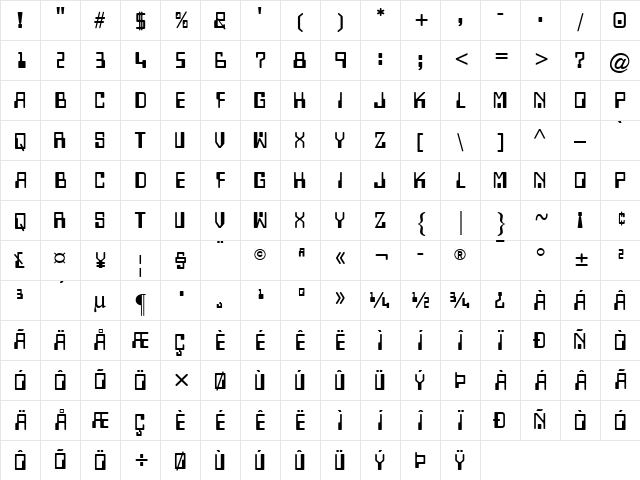
Complete ATComputer Regular glyph index. Displaying only characters natively supported by ATComputer Regular font.
ATComputer is a composed and adaptable typeface that performs quietly and consistently across a wide range of design contexts.